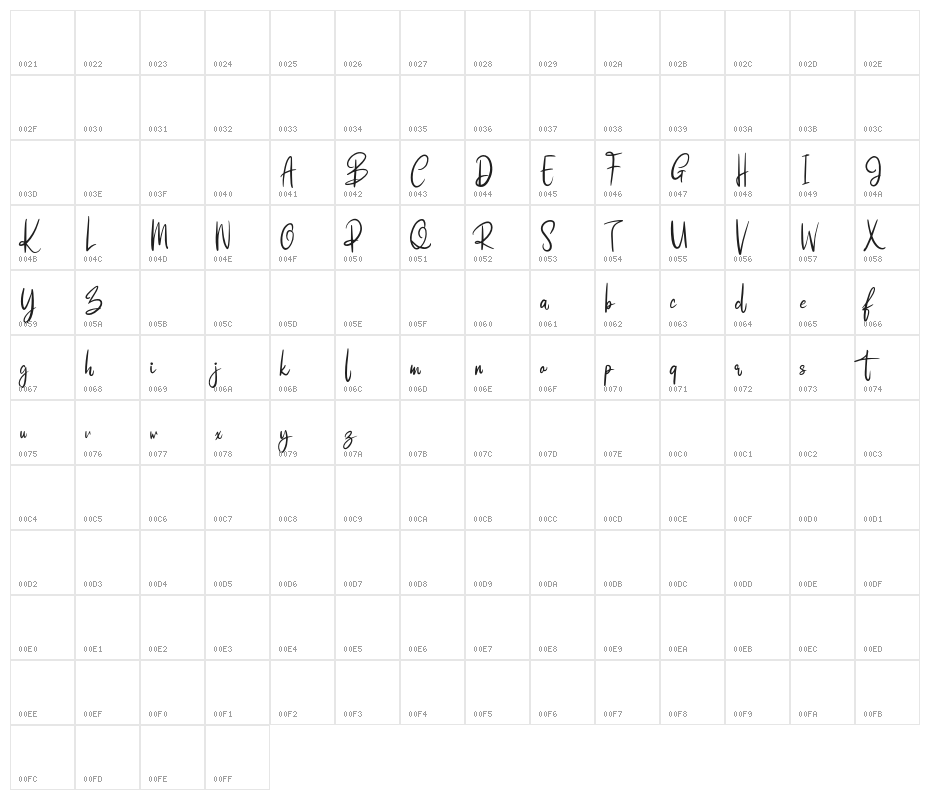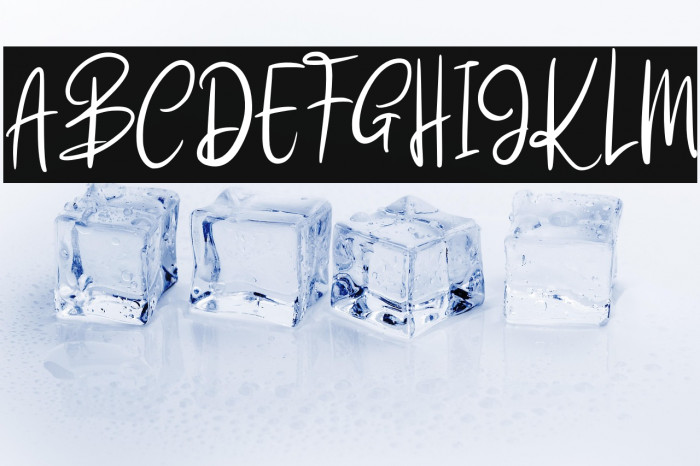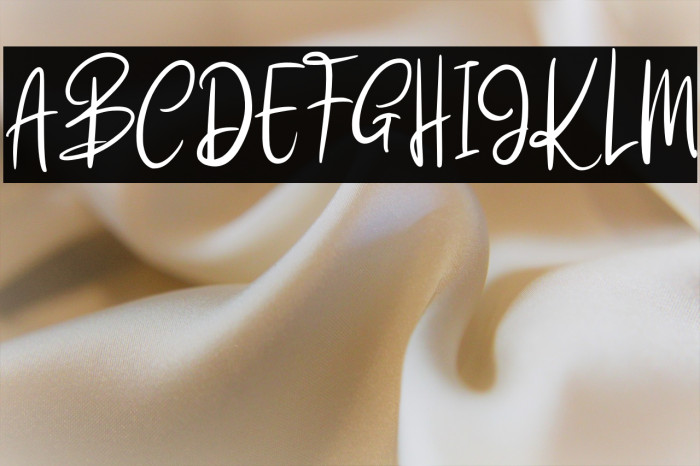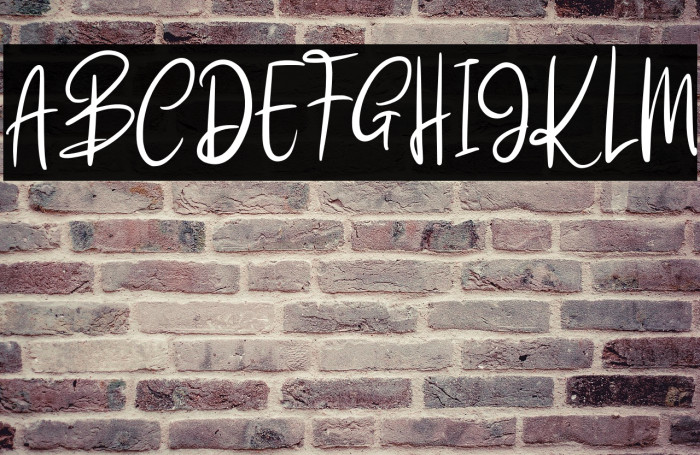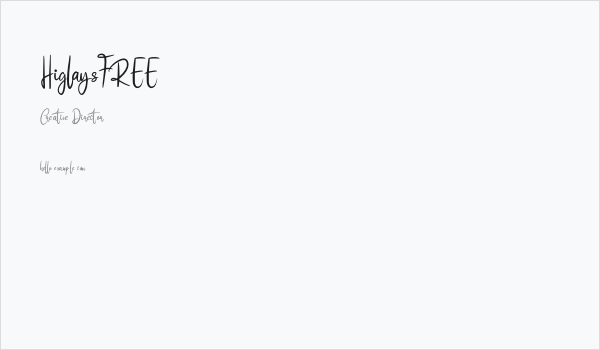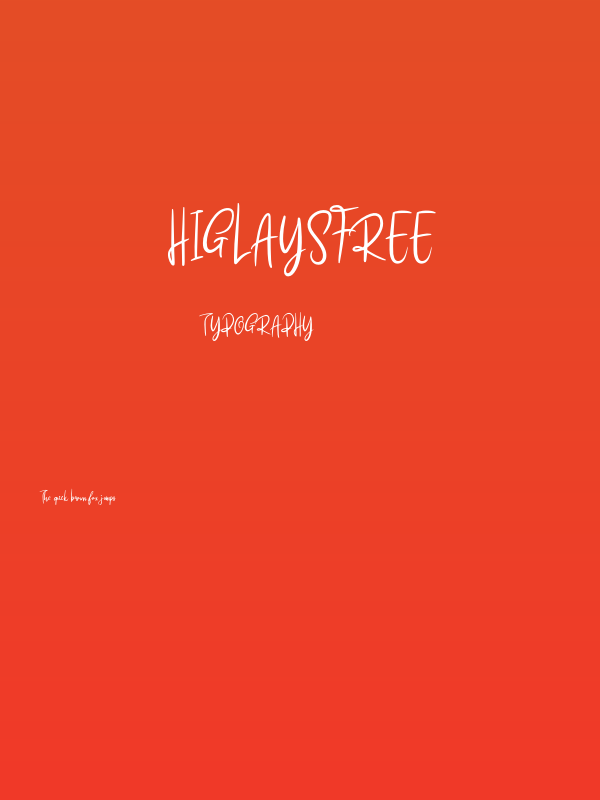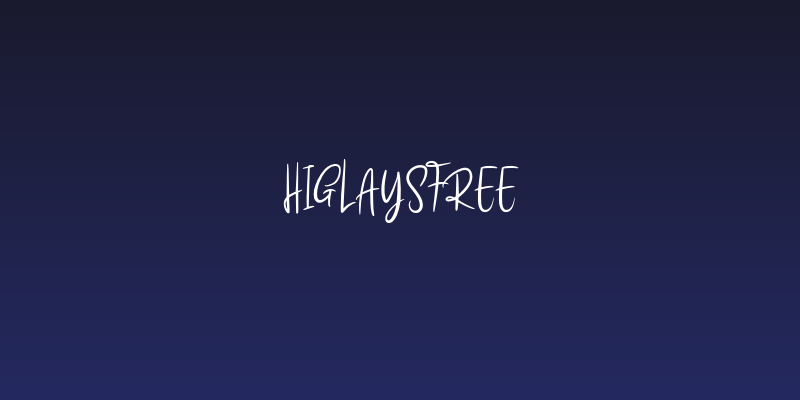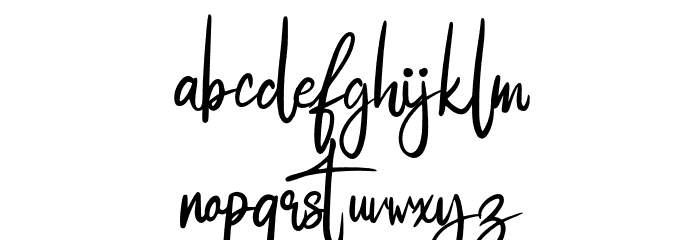
HiglaysFREE Font
HiglaysFREE Description
This font exhibits a playful and energetic handwritten style, characterized by its fluid and dynamic strokes. The uppercase letters are bold and expressive, with unique flourishes that add a touch of whimsy. The lowercase letters maintain a consistent flow, enhancing readability while retaining a casual elegance. The numerals and special characters are crafted with the same lively spirit, making them suitable for creative and informal contexts. The overall design is both modern and artistic, perfect for projects that require a personal and approachable touch.